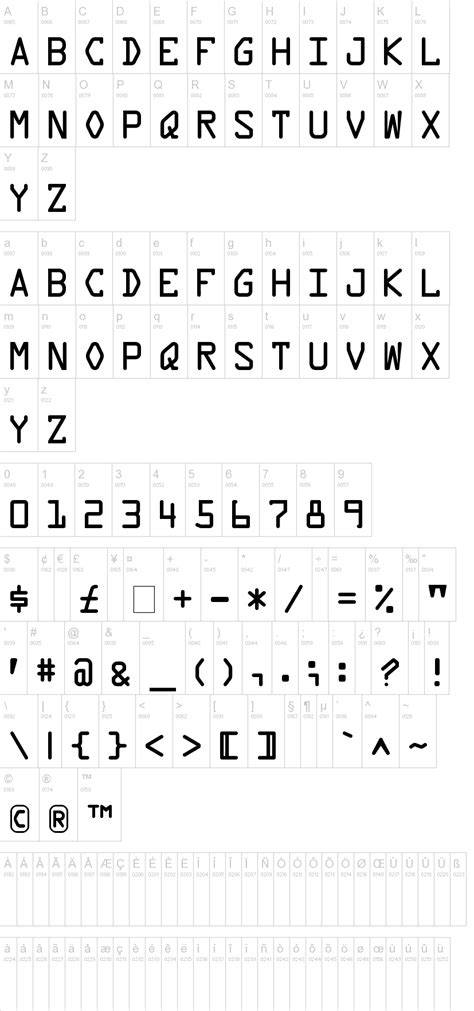
Data Control font
Data Control Font - Web data control font is a techno, various font designed by vic fieger. Enhance visualization, readability, and presentation today! Free added jan 26 2010. Web data control font family : Web unlock the full potential of your data with our free control data fonts.
Data Control Font - Uploaded by zemin 𑁋 (2 styles) report a violation add to list. Free added jan 26 2010. Unlock a treasure trove of font possibilities custom text preview: Web data control by vic fieger. Web data control font is a techno, various font designed by vic fieger.
Data Control Font - Free added jan 26 2010. Web data control font is a techno, various font designed by vic fieger. Web data control font family : Enhance visualization, readability, and presentation today! Web unlock the full potential of your data with our free control data fonts.
Data Control Font - Enhance visualization, readability, and presentation today! Web data control by vic fieger. Download free for desktop & webfont. Web data control font is a techno, various font designed by vic fieger. Web data control font family :
Data Control Font - Web unlock the full potential of your data with our free control data fonts. Data control font is free for both personel and commercial usages. Free added jan 26 2010. Enhance visualization, readability, and presentation today! Web data control font family :
Data Control Font - Unlock a treasure trove of font possibilities custom text preview: Web licensed for commercial use. Web data control font is a techno, various font designed by vic fieger. Uploaded by zemin 𑁋 (2 styles) report a violation add to list. Web unlock the full potential of your data with our free control data fonts.
Data Control Font - Data control font is free for both personel and commercial usages. Web data control font is a techno, various font designed by vic fieger. Web data control font family : Unlock a treasure trove of font possibilities custom text preview: Uploaded by zemin 𑁋 (2 styles) report a violation add to list.